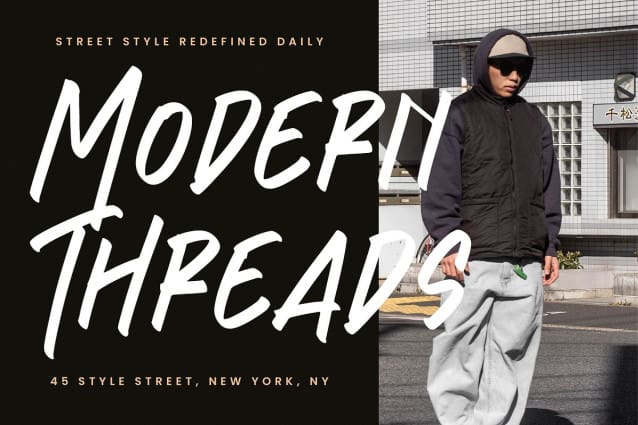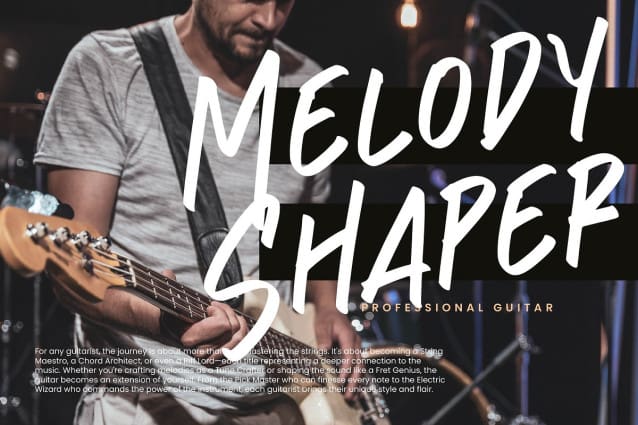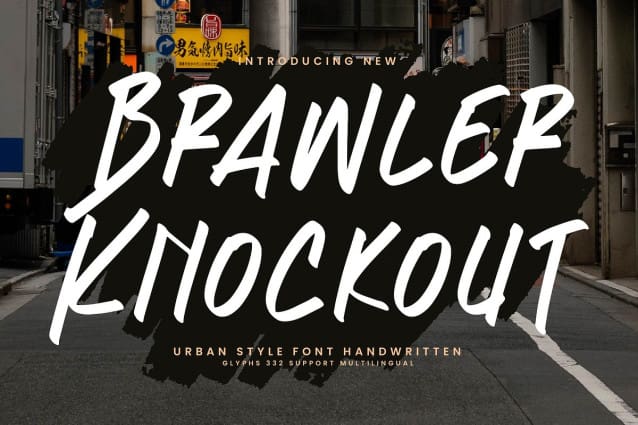
Brawler Knockout Font
Brawler Knockout – Urban Style Font Handwritten, from Integritype Studio, perfect for any project like: logos, branding projects, homewares designs, product packaging, mugs, quotes, posters, shopping bags, t-shirts, covers books, business cards, invitation cards, greeting cards, labels, photography, watermarks, special events and all your other luxury projects that require a premium taste.